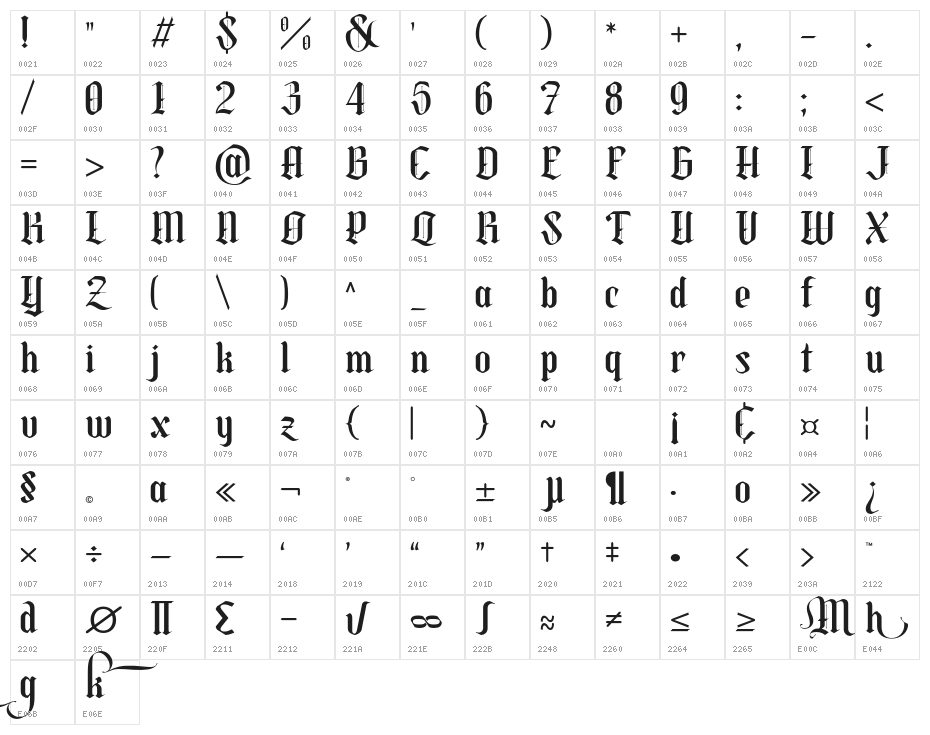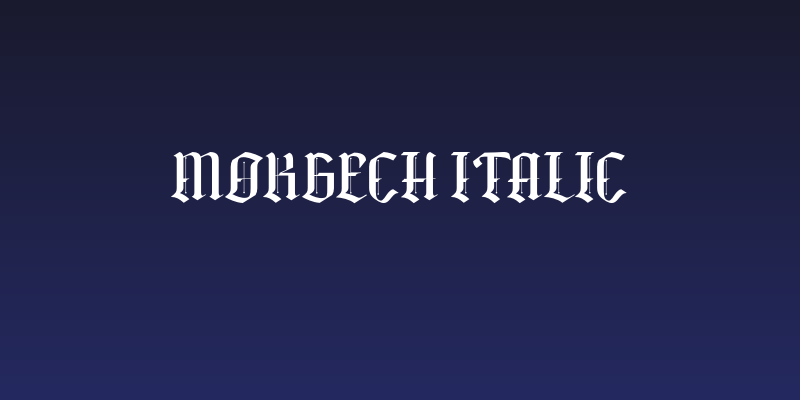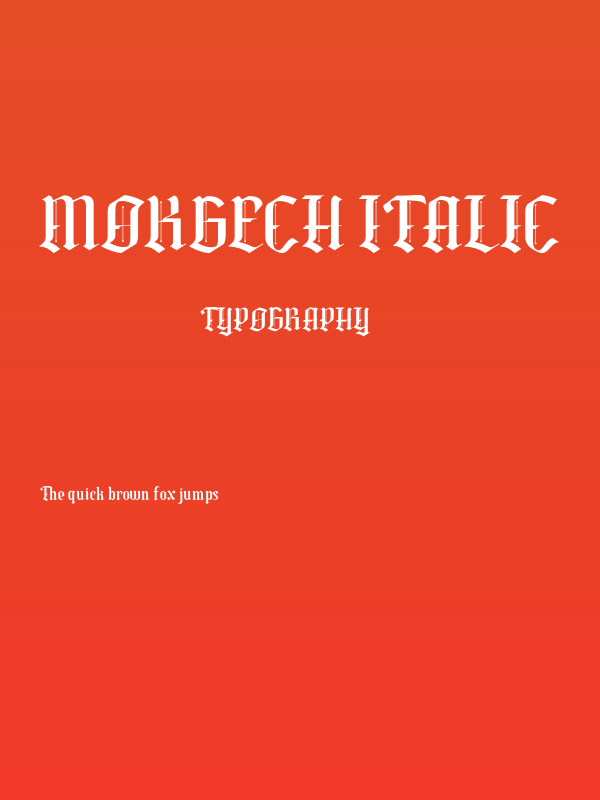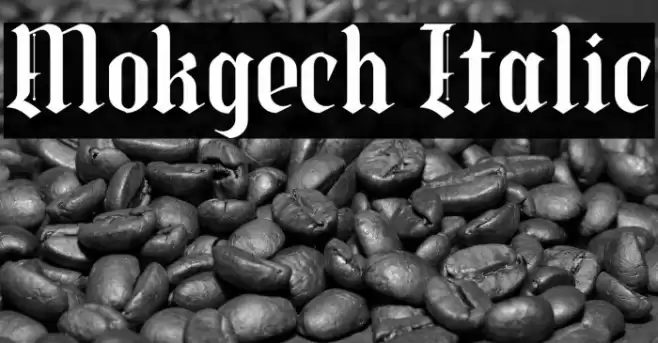
Mokgech Italic Font
Mokgech Italic Description
This font exhibits a classic blackletter style, characterized by its intricate and ornate letterforms. The uppercase letters are bold and angular, with sharp serifs and a distinct medieval appearance. The lowercase letters maintain the same decorative flair, with a slightly more condensed form. Numbers and special characters follow the same stylistic cues, ensuring consistency throughout. The overall design is reminiscent of traditional Gothic scripts, often seen in historical documents and signage. Its bold presence and high contrast between thick and thin strokes make it stand out, while the intricate details add a touch of elegance and sophistication.
| Proposed Projects | Ideal for projects requiring a historical or medieval theme, such as book covers, posters, or branding for vintage-style products. |